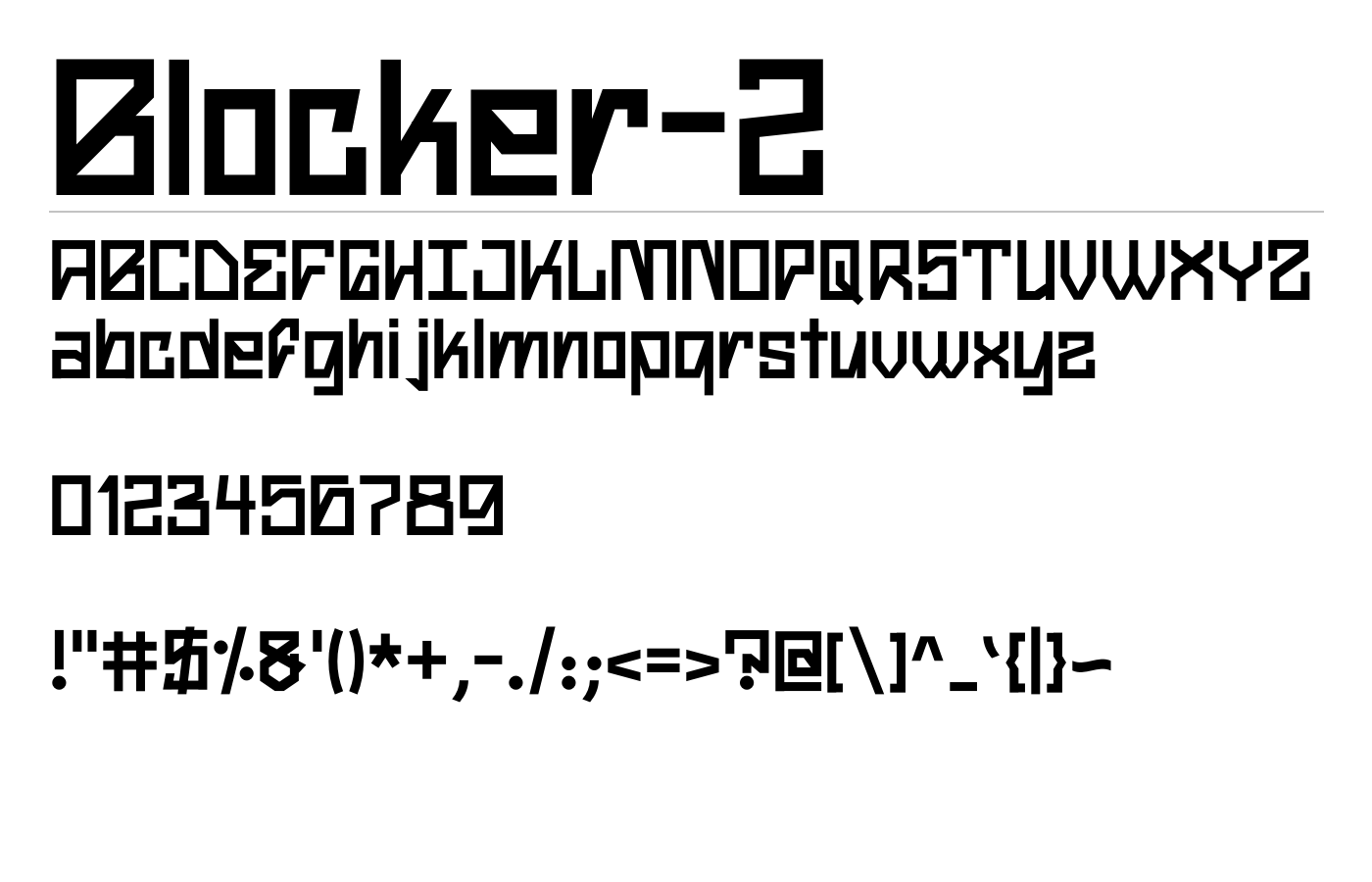
Blocker-2 is a bold, geometric sans serif font with a striking, angular design that features consistent stroke weight and a compact width. Its sharp edges and blocky letterforms give it a futuristic, technical feel, making it ideal for headlines, branding, and design projects that seek a strong, modern, and slightly industrial personality. This font stands out in logos, posters, and tech-related contexts where a dramatic and highly distinctive style is desired.
Blocker-2 Font
About Blocker-2 Font